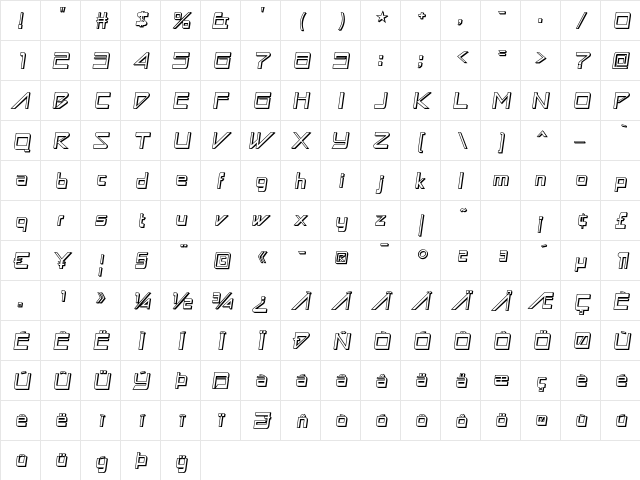
Astron Boy Wonder Regular
Astron Boy Wonder Family
Design Context for Astron Boy Wonder
Astron Boy Wonder is a composed and adaptable typeface that performs quietly and consistently across a wide range of design contexts.